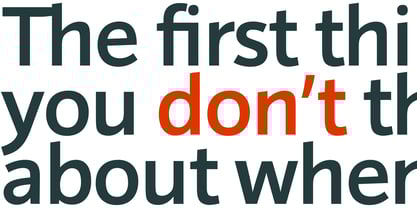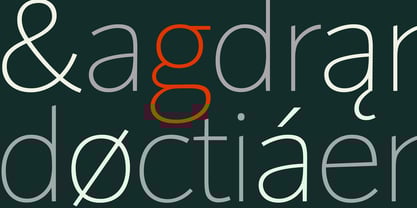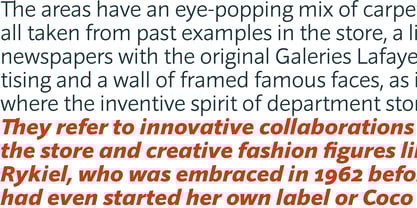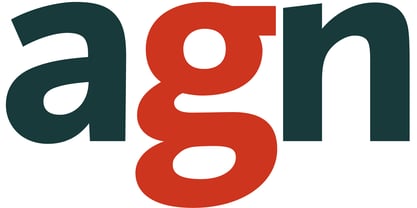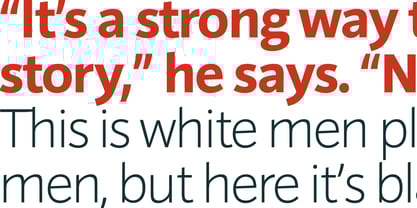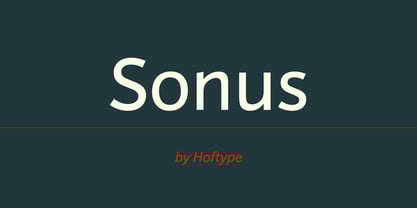
Sonus Font
Sonus Font is perfect for modern branding, digital interfaces, tech-related projects, sleek posters, and contemporary editorial layouts. Its clean and stylish design makes it highly versatile for both print and digital applications.
What makes Sonus Font exciting is its geometric precision combined with smooth, elegant curves. The font balances readability with a modern aesthetic, making it ideal for projects that require both clarity and visual sophistication.
The Sonus Font family includes Regular, Bold, Italic, and Light weights, giving designers flexibility to create cohesive typographic hierarchies and varied design compositions.